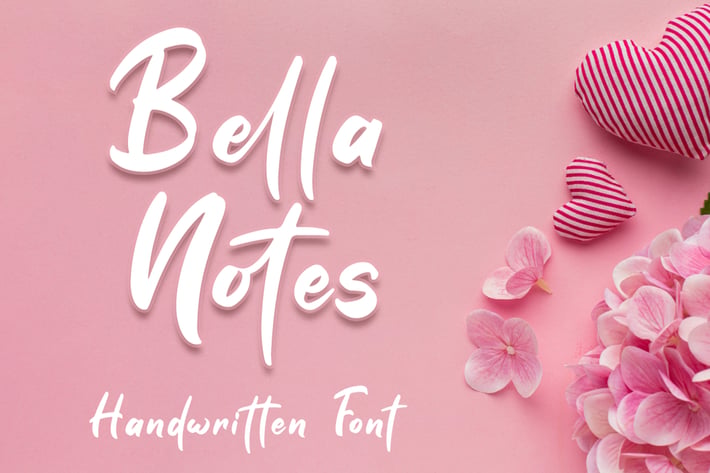
Bella Notes - Handwritten Font
Bella Notes is lovely Handwritten font, including ligatures that perfect for any combination for your design.
Bella Notes perfectly macth for design with valentine theme, any product like book cover, t-shirt, branding, promotion, social media post, quotes, wedding, photography and more.